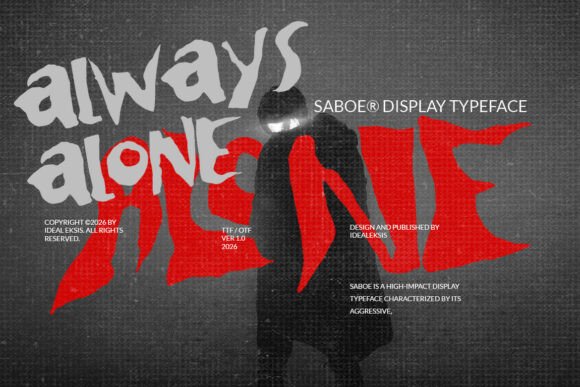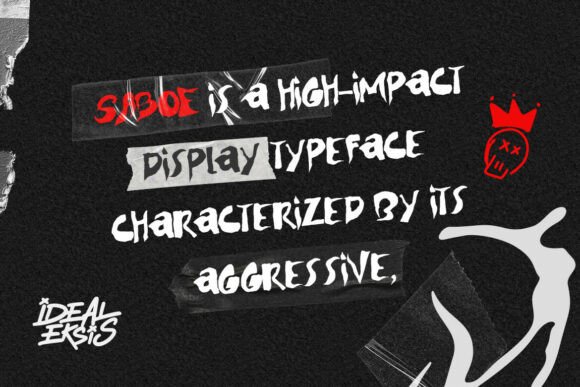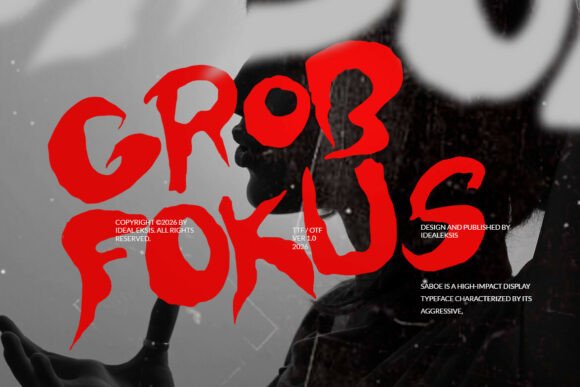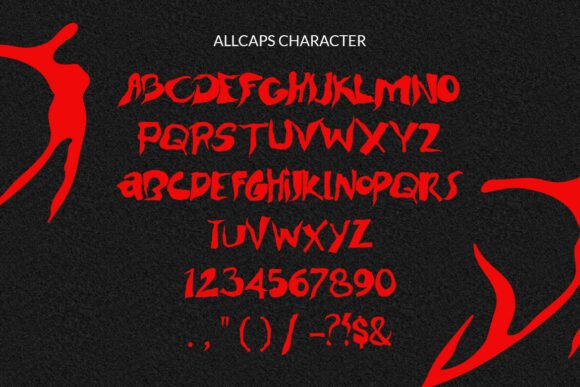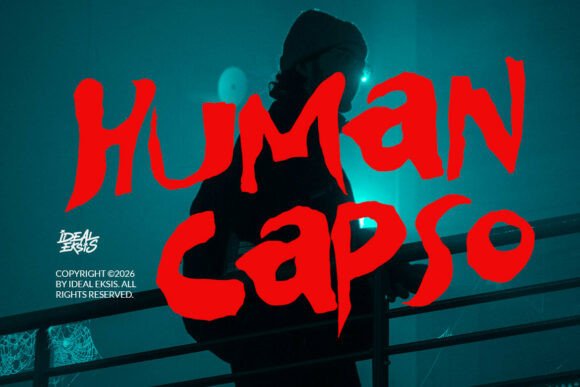
Introduction to Saboe Font Font
Fonts play a crucial role in design, and the Saboe Font font is a typeface that brings both character and versatility to any project. Whether you’re working on a branding project, a website, or a print design, the Saboe Font font offers a unique style that can elevate your work.
Unleash a dynamic eruption of chaotic energy with Saboe – a high-impact display typeface that truly makes a statement.
Defined by uniquely aggressive and jagged letterforms, Saboe thrives on its raw, handcrafted aesthetic, designed with unruly precision Each character, or glyph, is lavishly adorned with irregular, pointy terminations, and strokes of varying weights that stir up a wild sense of kinetic movement.
Key Features of Saboe Font Font
Why Choose Saboe Font Font?
The Saboe Font font is more than just a typeface – it’s a design tool that helps you communicate your message with style and clarity. Its unique character set and versatile design make it suitable for a wide range of applications, from elegant invitations to bold headlines.
With its carefully crafted letterforms and balanced proportions, the Saboe Font font ensures readability and visual appeal across all mediums.
What makes Saboe Font font special?
The Saboe Font font stands out with its unique design, exceptional readability, and versatility across various design applications.